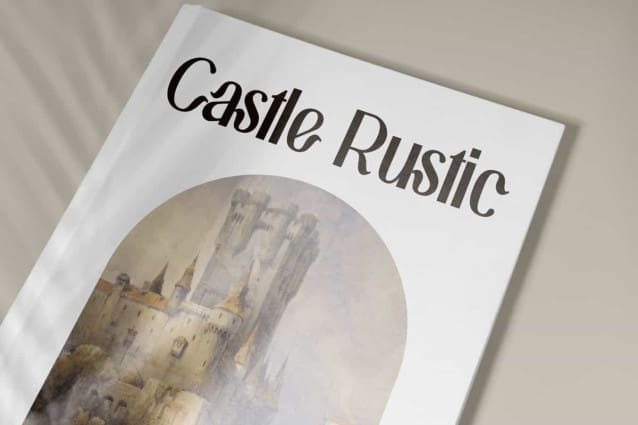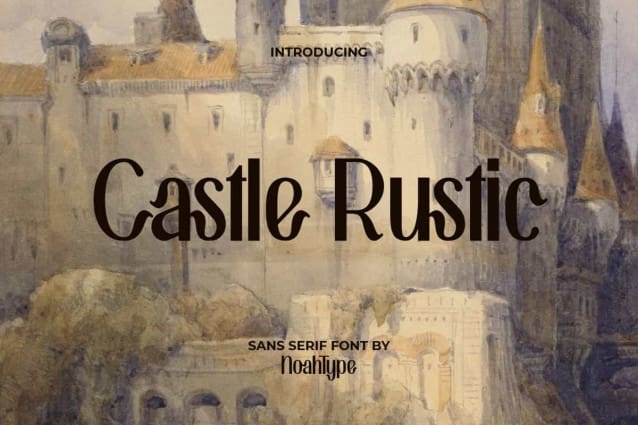
Castle Rustic Font
Castle Rustic Font is an aesthetic sans serif display font inspired from old medieval retro era . This font can bring vintage feels in your design and make it interesting. It will be perfect for any designs, such as brand image, cover, custom design, invitation, label, marketing material, menu, poster, product packaging, quote, signage, stationery, web, and many more!
Castle Rustic Font includes full set of Uppercase and Lowercase Basic Characters, Numerals, Punctuation, and Symbol. This font has unique and stylish looks which is perfect choice for many industries, such as accessories, advertising, art, beauty product, cafe, event or festival, fashion, perfume, printing, publishing, etc.